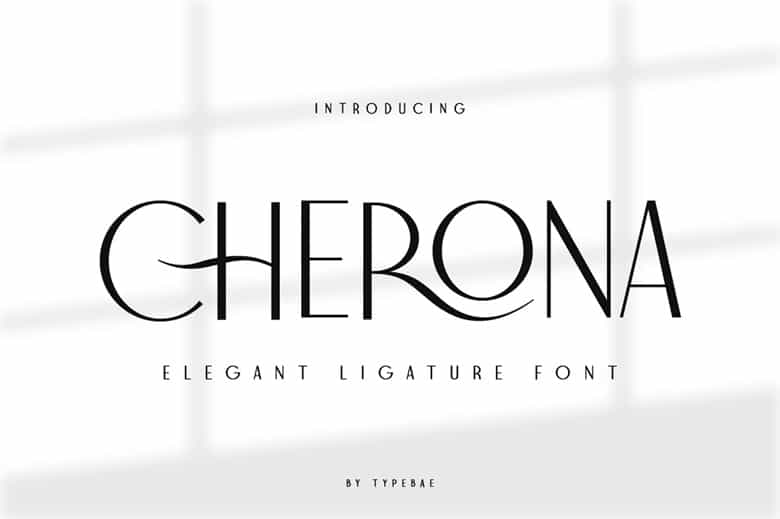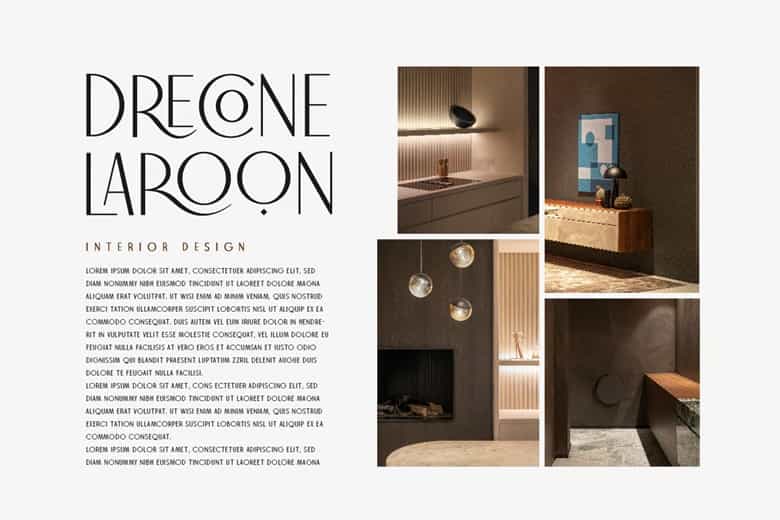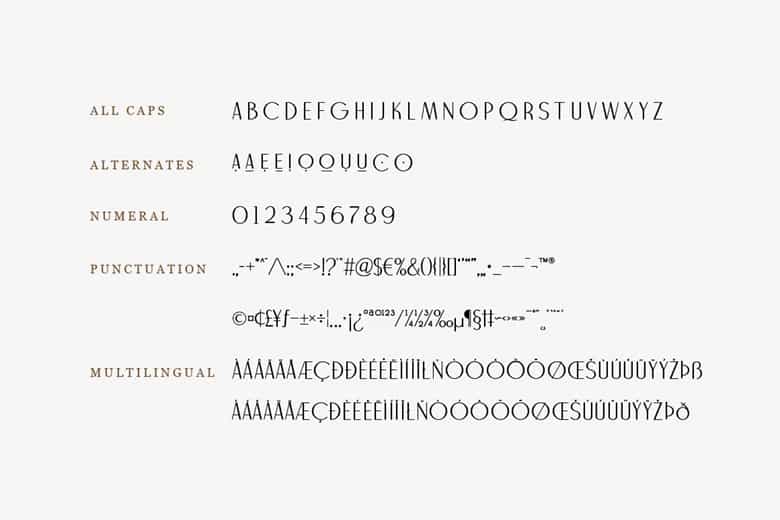
Cherona is new fashionable sans serif font that has some exquisite ligatures. It’s important to say that it’s very flexible and looks good both in big and small scale. The detailed strokes make this font ideal for using in luxury logos, fashion related logos, editorial designs, invitations, interior design, book covers and many other.